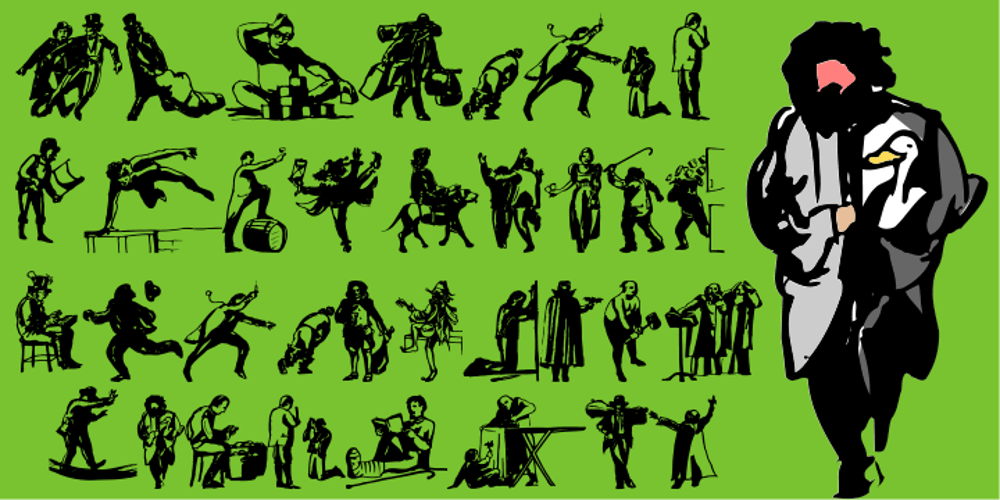
Bizarries
Bizarries font
Bizarries Font Family was designed by Joan M. Mas and published by Typephases. Bizarries contains 3 styles and family package options. This series, with 104 illustrations in three files, collects original ink drawings with absurdities, bizarre people, whimsical personalities and risky behaviors! There is a very peculiar sense of narrative in the sucession of characters, even if they came out rather spontaneously and their order is random.With a vintage look and feel, these people seem to come out of a time capsule from Victorian times. Almost everything in the Bizarries (and also in their close relatives, our Illustries, Whimsies, Ombres, Absurdies and Genteta dingbats) is invented and drawn with no references —just a handful of images were sketched from historical photography. These illustrations can be very useful for a variety of projects, either in black and white, or colored in a paint or drawing application. You can use them at any size, from a small spot illustration to a huge poster, depending on your needs. The outlines remain crisp and clear no matter how much you enlarge, reduce, distort or tweak their shapes.